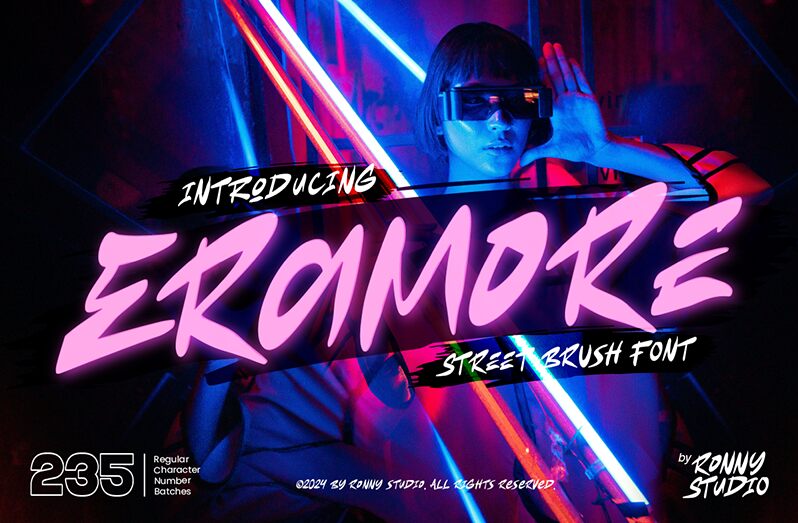
Eramore, crafted by Ronny Studio, exudes a vibrant street brush style that pulses with urban energy. Its bold strokes create an eye-catching presence, effortlessly blending artistry with attitude. The fluidity of the letterforms resonates with a sense of spontaneity, making each character feel alive and expressive.
This font captures the essence of street art, perfect for adding a gritty charm to posters, branding materials, or social media graphics. Its dynamic appeal ensures that it stands out in any context, whether evoking creativity in music events or energizing fashion campaigns. Eramore invites designers to embrace its unmistakable flair and bring an authentic edge to their visual storytelling.